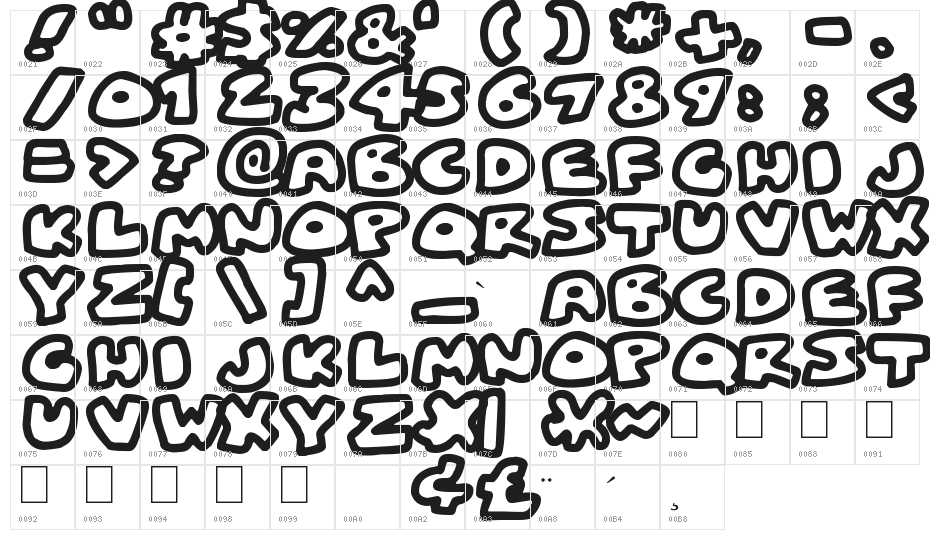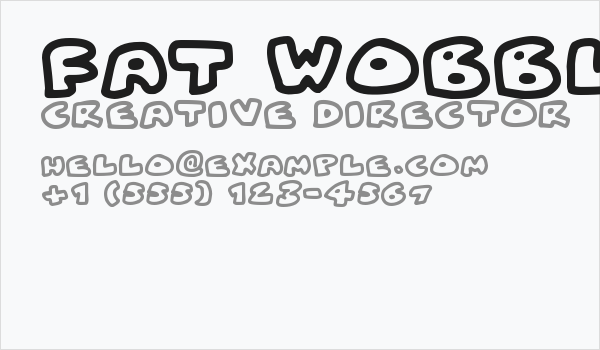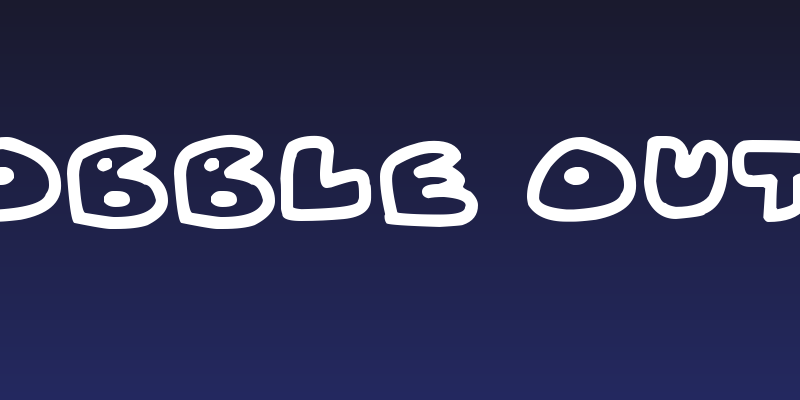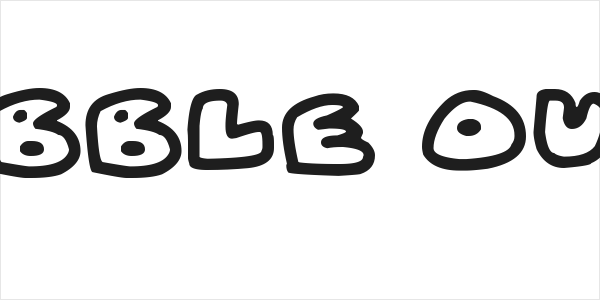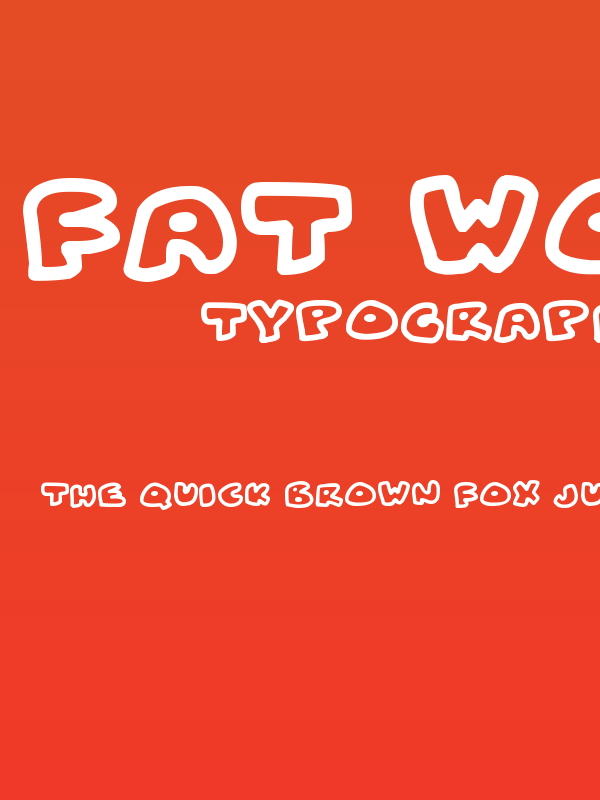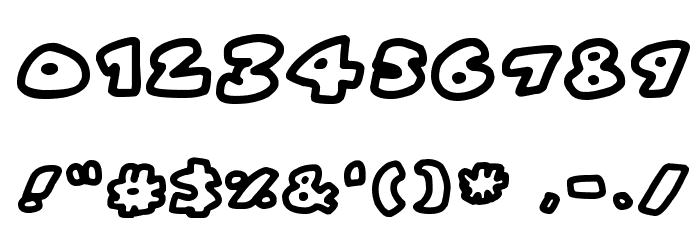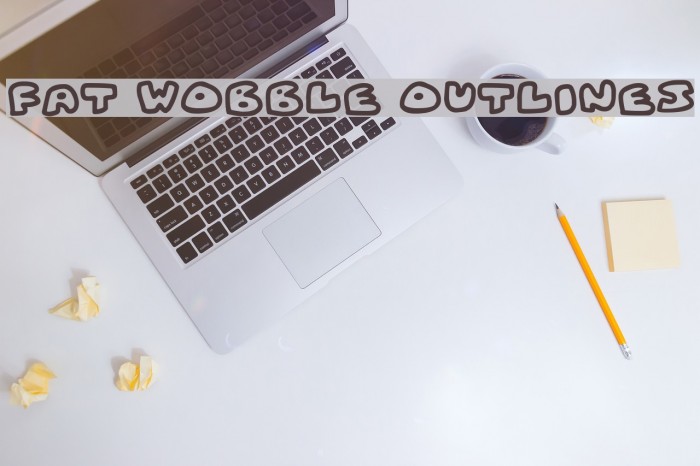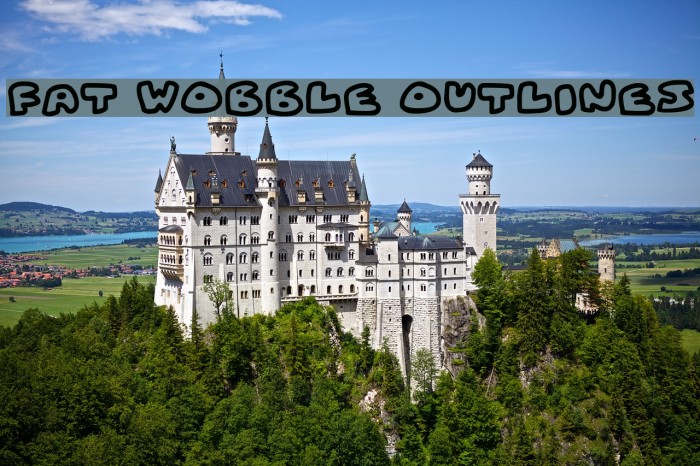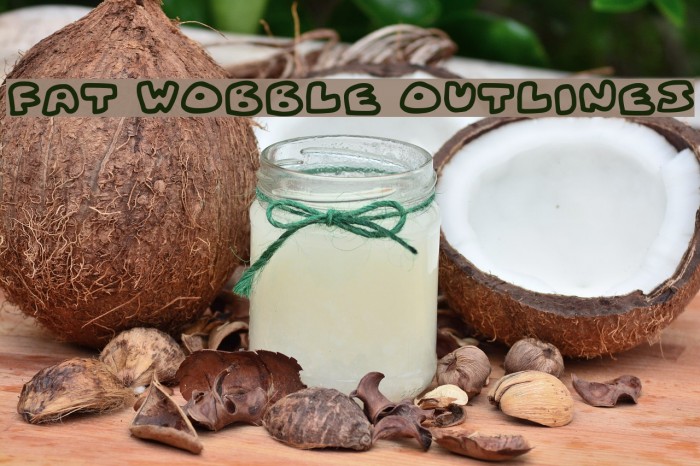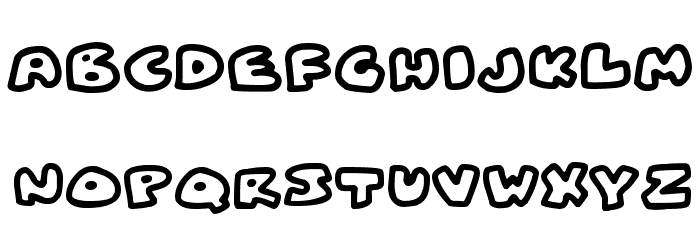
Fat Wobble Outlines Font
Fat Wobble Outlines Description
This playful and bold font features thick, rounded outlines that give it a bubbly and whimsical appearance. The characters are slightly irregular, adding a sense of fun and movement. The uppercase and lowercase letters maintain a consistent style, with a generous amount of space between each character, enhancing readability. The numbers and special characters follow the same design ethos, making the font versatile for various creative applications. Its unique style makes it stand out, perfect for projects that require a touch of humor and lightheartedness.
| Proposed Projects | Ideal for children's books, comic strips, playful branding, party invitations, and creative posters. |